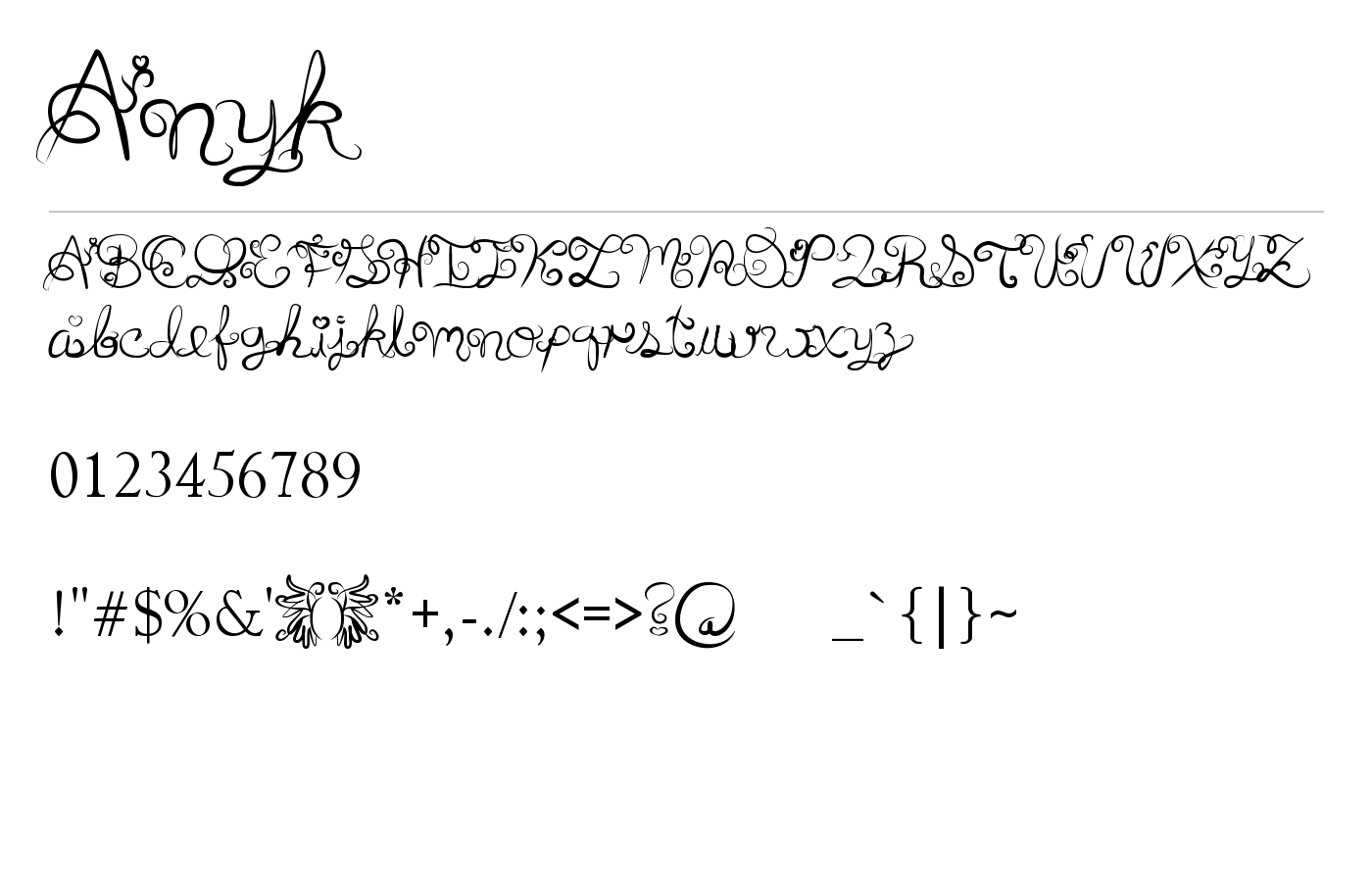
Anyk Font is an elegant, decorative script typeface featuring intricate, swirling letterforms with a playful, hand-drawn feel. Its delicate lines and ornamental details make it perfect for creative branding, invitations, and artistic projects that seek a whimsical yet refined touch. This font works best in display settings where its unique style can shine without overwhelming the reader.
Anyk Font